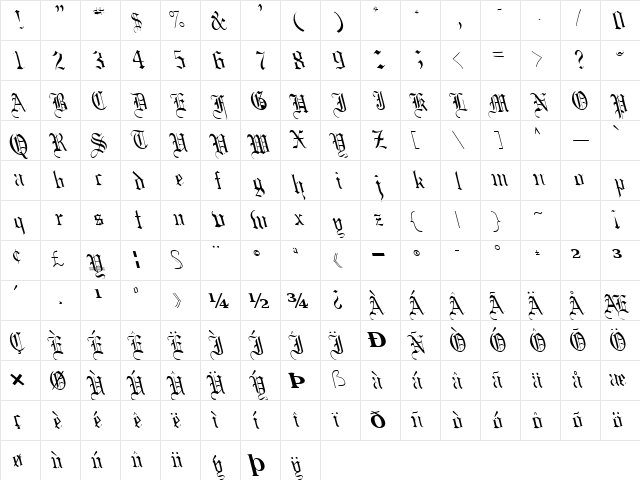
BoobShellText125 Regular Font Preview
BoobShellText125 Regular
BoobShellText125 Regular Font Details
Design Context for BoobShellText125 Typeface
BoobShellText125 is a composed and adaptable typeface that performs quietly and consistently across a wide range of design contexts.